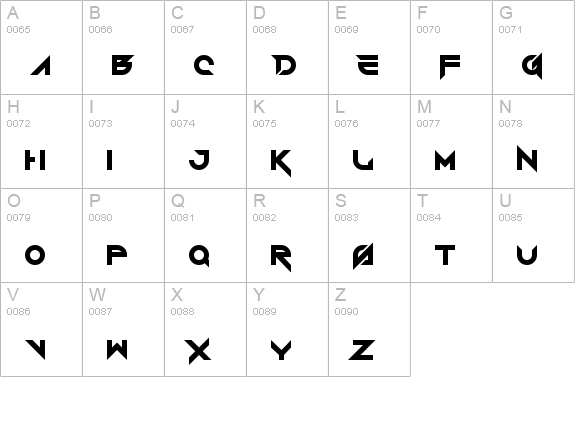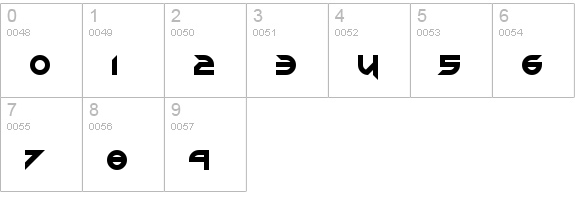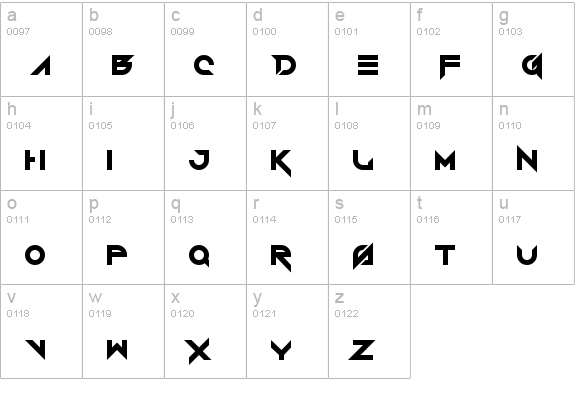
Vermin Vibes Roundhouse Regular is the standard, neutral variant in the Vermin typeface family \xE2\x80\x94 well suited to general body text, paragraphs, and standard typographic work.
Vermin Vibes Roundhouse Regular font is a unique display typeface that exudes energy and modernity. With its bold, rounded letterforms and distinctive style, this font is perfect for making a statement in your designs. Whether you're working on branding, posters, or social media graphics, Vermin Vibes Roundhouse Regular will add a touch of edginess and personality. What sets this font apart is not only its striking appearance but also the fact that it is available for free download at FontsMarket.com. Yes, you read that right – you can get your hands on this eye-catching typeface without spending a dime. So why wait? Elevate your projects with Vermin Vibes Roundhouse Regular and make a lasting impression with its dynamic and contemporary vibe.